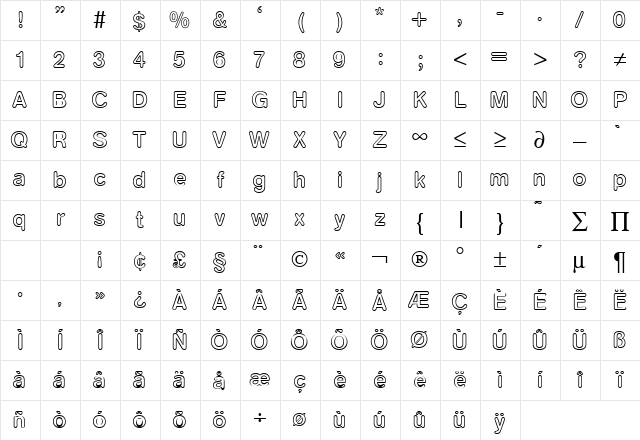
AkzentRoundedOutMedium DB softens its letterforms with rounded terminals, giving it an approachable, friendly quality that works well in consumer-facing and digital contexts.
Font Pairing: Pairs well with a rounded or humanist sans for body copy, maintaining the friendly tone without relying on AkzentRoundedOutMedium DB to carry extended reading.
Pro Tip: Use AkzentRoundedOutMedium DB for UI elements, app interfaces, and anywhere a friendly, approachable tone needs to be maintained without sacrificing clarity.